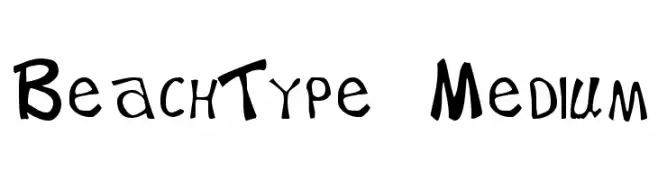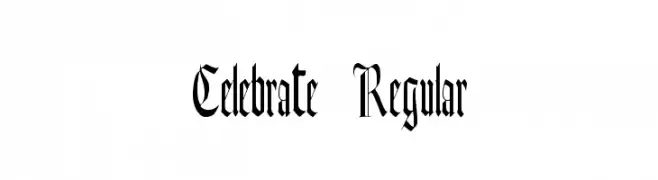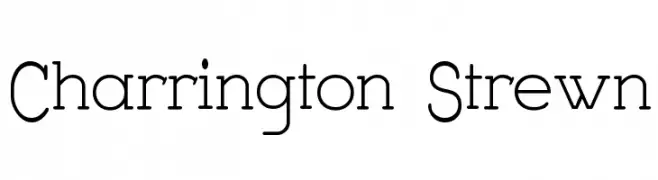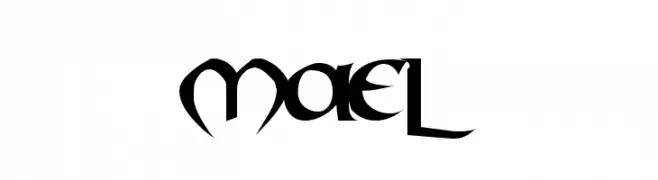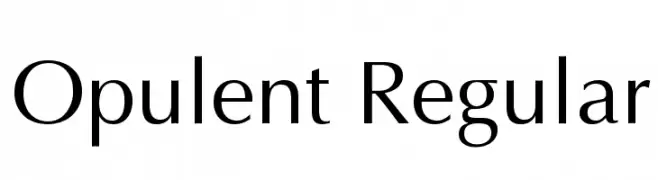
A decorative font with horizontal line patterns creating a venetian blind effect.
A tall, narrow, and modern font with high contrast and tight spacing.
( Fonts by Steve Ferrera )
A bold, geometric font with a modern, art deco influence.
( Fonts by Zdenek Gromnica - www.futuremillennium.com )
A bold, high-contrast serif font with sharp serifs and a modern classic style.
An italic font with Greek influences, offering medium contrast and a classical style.
A pixelated, grid-based font with a modern, digital aesthetic.
A bold, italicized font with a futuristic, angular design.
( Fonts by Thomas O`Callaghan - www.tomocallaghan.co.uk )
A bold, rounded, and modern font with a playful and approachable style.
( Fonts by Christopher Hansen )
A classic serif font with elegant, sharp serifs and subtle medieval influences.
A bold, italicized font with geometric, angular design and strong diagonal emphasis.
A modern, condensed italic font with bold, angular characters.
A bold, italicized font with a futuristic and angular design.
A bold, italic, futuristic font with geometric shapes and a three-dimensional outline.
A bold, ornate font with a medieval, historical style.
( Fonts by Paul Lloyd )
A bold, decorative blackletter font with intricate swashes.
A modern, semi-bold sans-serif font with smooth curves and a geometric structure.
( Fonts by Luis Angel Uribe - luisangeluribe.wordpress.com )
A modern, minimalist font with thin, elongated strokes and geometric influences.
A modern, geometric sans-serif font with uniform stroke width and balanced proportions.
A classic serif font with bold strokes and pronounced serifs, offering a timeless and sophisticated appearance.
A classic serif font with elegant, traditional letterforms and balanced proportions.
A modern, geometric font with rounded edges and a sleek, futuristic style.
( Fonts by www.misprintedtype.com )
A geometric, angular font with a modern, minimalist aesthetic.
A highly stylized, abstract font with sharp, angular lines and a chaotic aesthetic.
( Fonts by David Rakowski )
A sleek, elongated font with narrow, minimalistic letterforms.